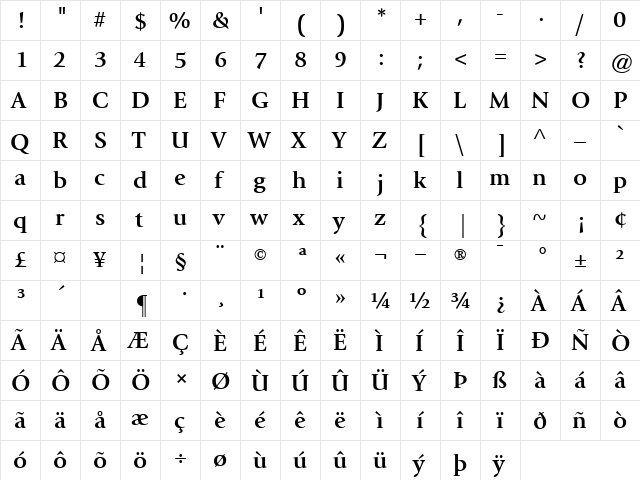
Giovanni Bold
Design Context for Giovanni Typeface
Giovanni takes a measured approach to typography — its balanced proportions and neutral character make it a reliable workhorse for both digital and print work. The heavy weight commands attention and anchors typographic hierarchies.
Pro Tip: Use Giovanni in both headline and body roles to test its range before committing to a single application.